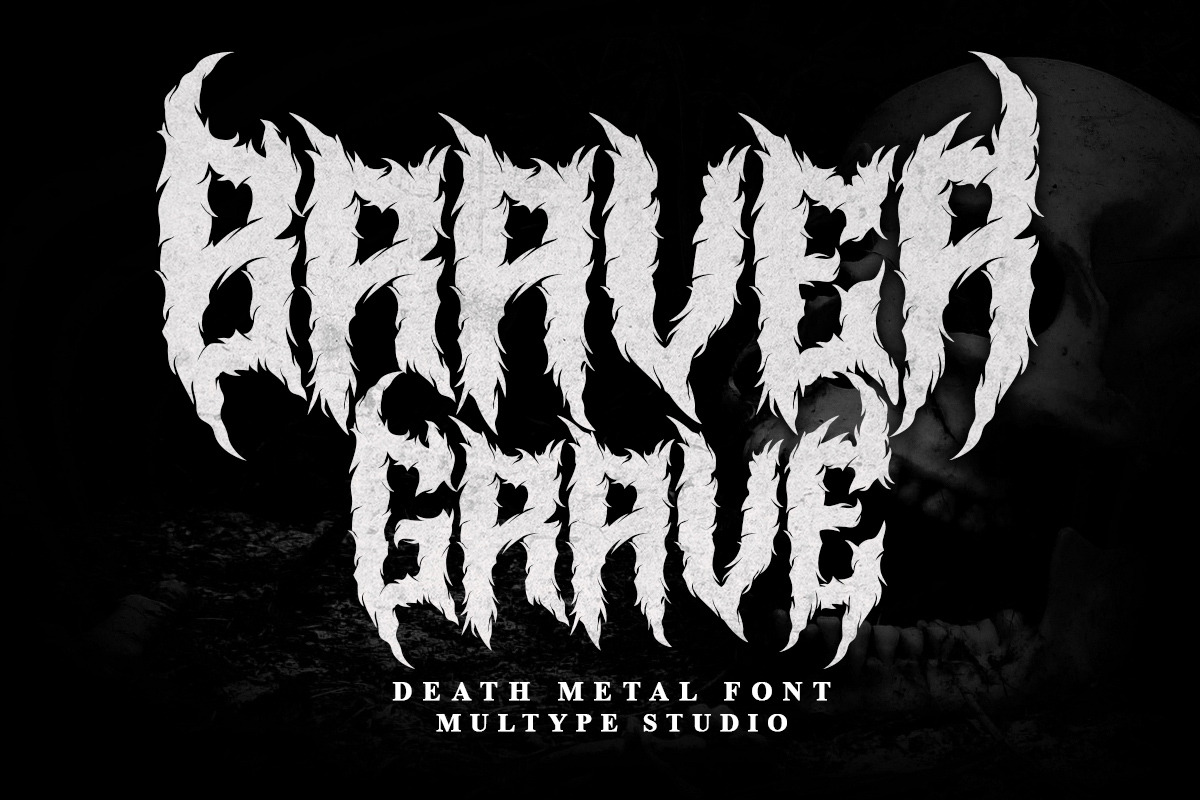
Braver Grave - Death Metal Font
Braver Grave is a death metal font. This font perfect for logotype death metal band, logotype death metal brand, product, merchandise death metal band, death metal band covers, rock events, rock posters, rock magazine covers, branding, product design, labels and other creative project.